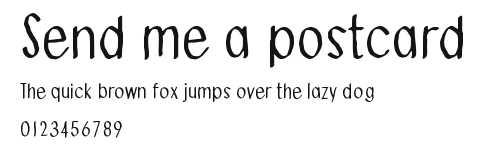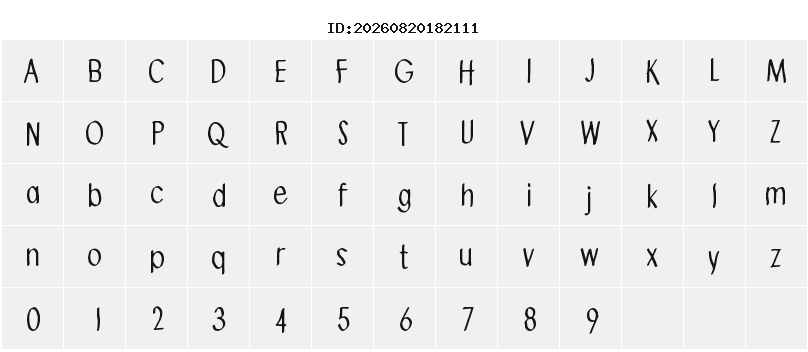
• Font Name: Send me a postcard
• Full Font Name: Send me a postcard
About Send me a postcard.ttf
Send me a postcard.ttf is a modern, elegant sans-serif font designed for ultimate readability and visual harmony. Perfect for branding, headlines, web design, and print materials.